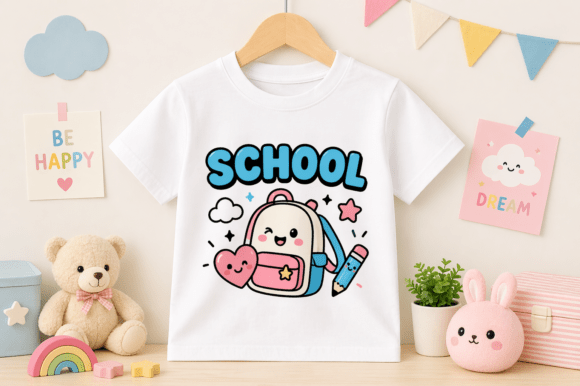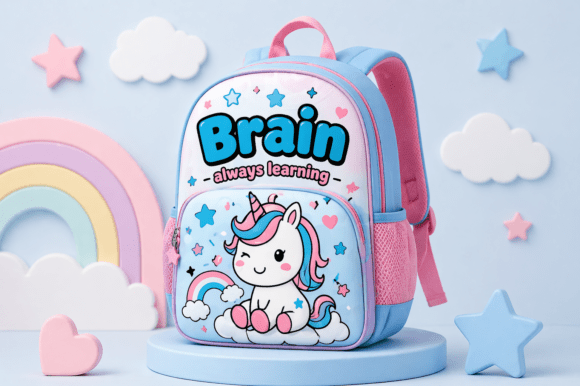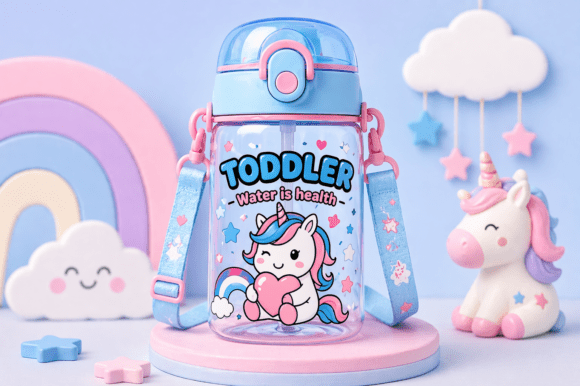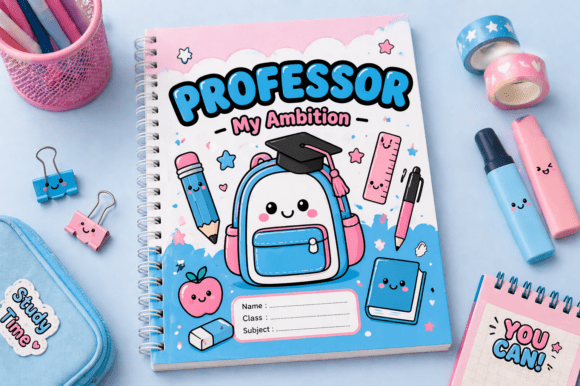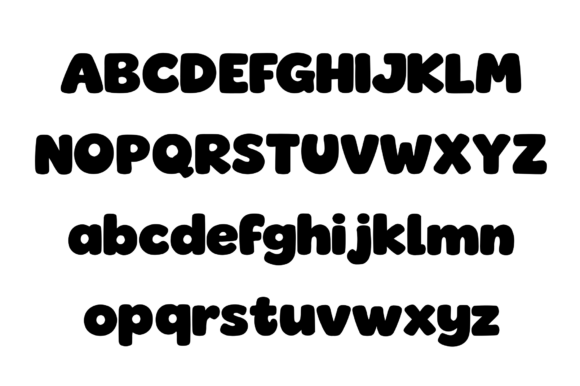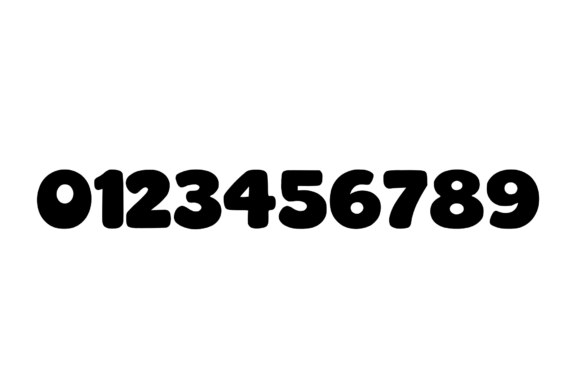
Introducing Booz Font: A Playful and Expressive Bubble Display Typeface
Are you looking for a font that can add a touch of playfulness and fun to your designs? Look no further than the Booz Font! This delightful bubble display typeface is designed with a strong cute school-themed personality, making it perfect for kids’ products, educational materials, and school-related designs.
The Booz Font features thick, rounded bubble shapes with soft edges and no sharp corners, giving it a friendly and approachable feel. Each character has slightly exaggerated curves and subtle irregularities, creating a hand-drawn, organic style that feels lively and fun rather than rigid. The lettering is bold and compact, making it ideal for headlines and branding.
- Thick, rounded bubble shapes: The Booz Font features thick, rounded bubble shapes that give it a soft and inflated look.
- Soft edges with no sharp corners: The font has soft edges with no sharp corners, making it perfect for designs that require a friendly and approachable feel.
- Slight hand-drawn irregularity: The font has a slight hand-drawn irregularity, giving it a unique and organic feel.
- High contrast with bold outlines: The font features high contrast with bold outlines, making it perfect for headlines and branding.
- Compact and attention-grabbing structure: The font has a compact and attention-grabbing structure, making it perfect for designs that require a bold and playful look.
Perfect for
The Booz Font is perfect for a variety of design projects, including:
- Kids’ products and educational materials: The font’s playful and fun design makes it perfect for kids’ products and educational materials.
- School-related designs: The font’s cute school-themed personality makes it perfect for school-related designs, such as school logos, posters, and flyers.
- Headlines and branding: The font’s bold and compact design makes it perfect for headlines and branding, especially in children’s products and educational materials.
The Booz Font Preview
The Booz Font preview showcases the font’s playful and expressive design. The word “BOOZ” stands out with a vibrant mix of blue and pink fills, outlined in solid black, enhancing readability while adding a cheerful visual contrast. The oversized, compact letterforms make it ideal for headlines and branding, especially in children-oriented designs.
Why Choose the Booz Font?
There are many reasons why you should choose the Booz Font for your design projects. Here are a few:
- Unique and playful design: The Booz Font has a unique and playful design that will add a touch of fun to your designs.
- Perfect for kids’ products and educational materials: The font’s cute school-themed personality makes it perfect for kids’ products and educational materials.
- High-quality design: The font is designed with high-quality and attention to detail, making it perfect for professional designs.
- Easy to read: The font’s bold and compact design makes it easy to read, even at small sizes.
In conclusion, the Booz Font is a playful and expressive bubble display typeface that is perfect for kids’ products, educational materials, and school-related designs. Its unique and playful design, high-quality construction, and ease of readability make it a great choice for designers and crafters. Whether you’re creating a logo, poster, or flyer, the Booz Font is sure to add a touch of fun and playfulness to your designs.